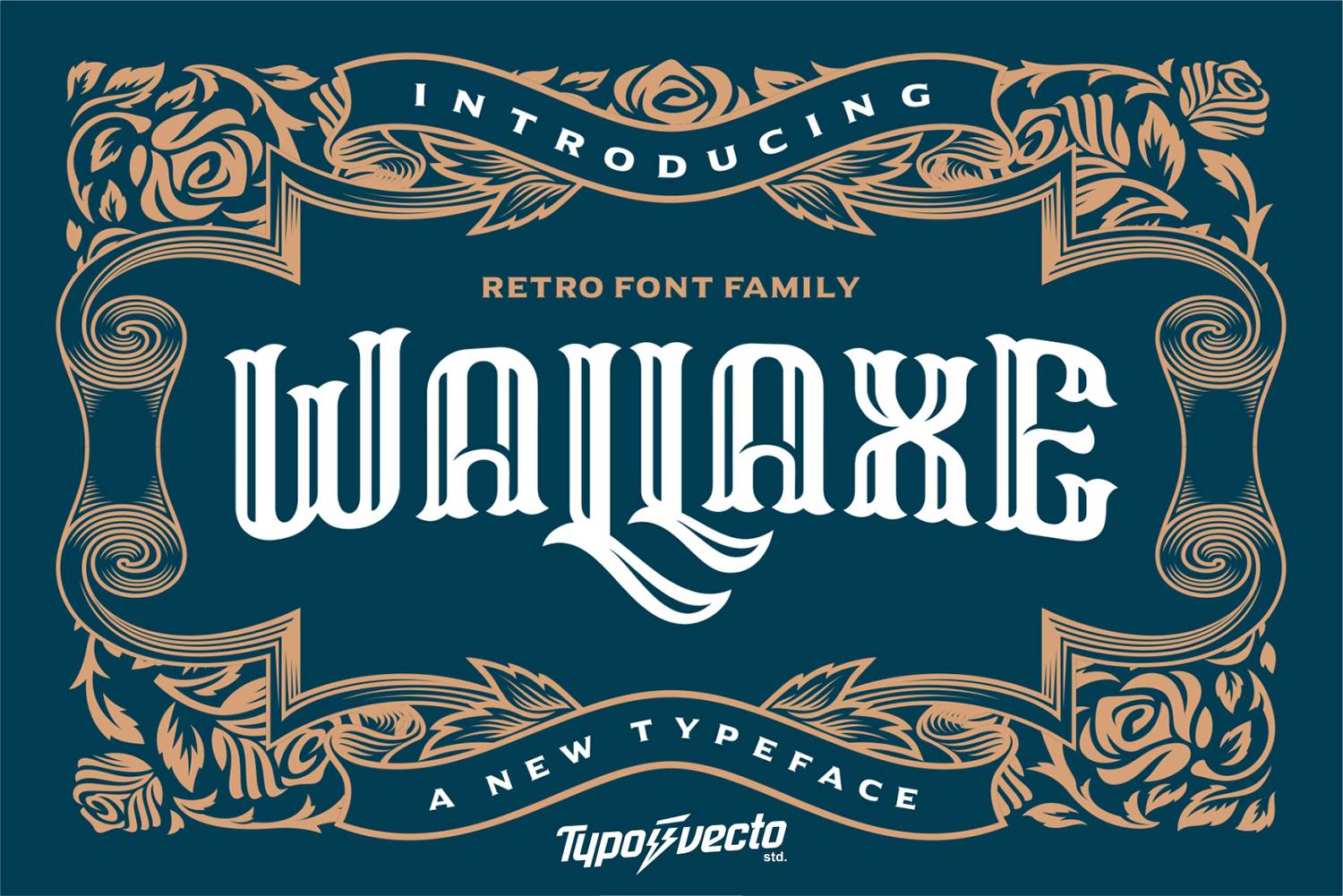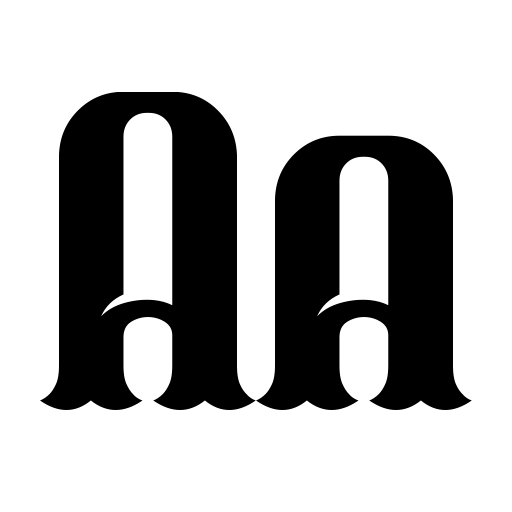
Wall Axe is a bold, condensed serif typeface with a unique vintage flair, featuring thick and strongly bracketed serifs that give it a sturdy, crafted feel. Its tall, narrow letterforms with distinct angular cuts and decorative elements make it ideal for eye-catching headlines, posters, and branding projects that seek a rugged, old-west or industrial-inspired character. This font shines in display uses where its strong personality can add a dramatic, bold statement.
Wall Axe Font
About Wall Axe Font
| Font family | Wall Axe Font |
| Designer | Farhan T. Sudibya |